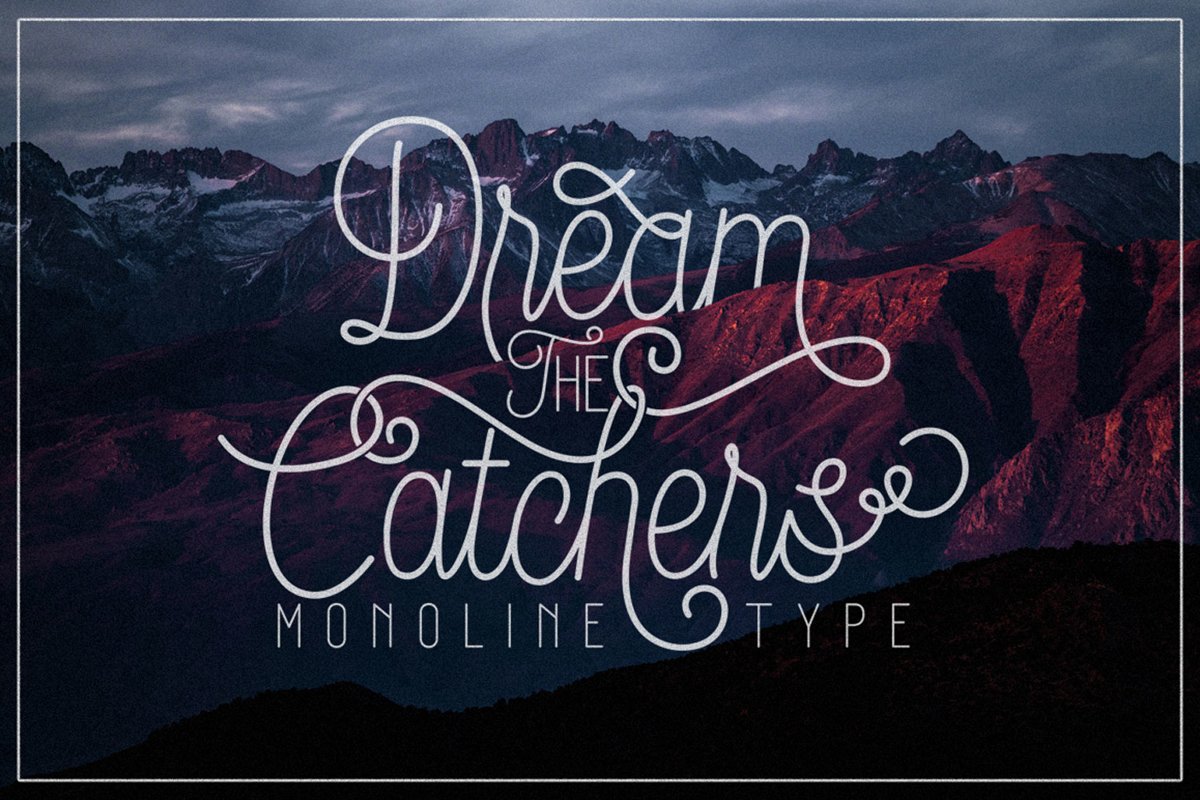
Dream Catchers
Dream Catchers is a one of Monoline Typeface.
Perfect combine of Script and Sans type for make a beautiful logo design, branding, signage, poster, quotes , wedding invitations and many more. Alternate character contain with opentype features. Dream Catchers make you have more choice to make your own design with bonus type swash , catchword, and ornaments.